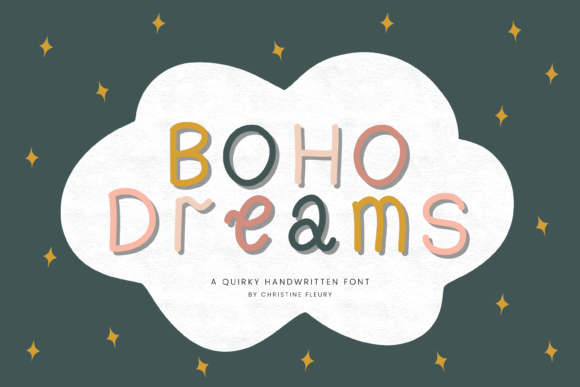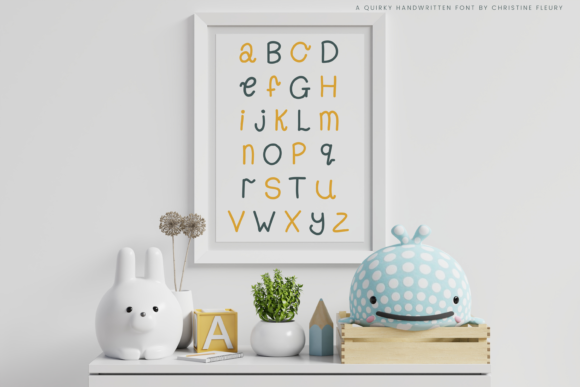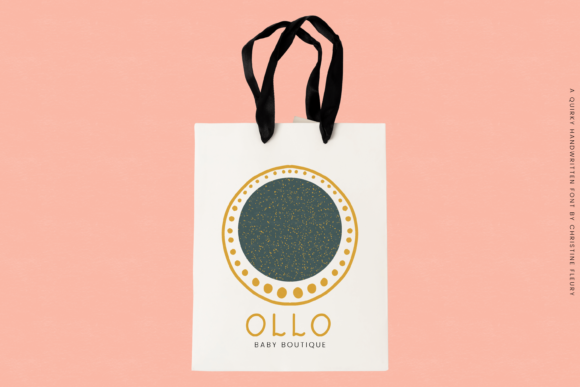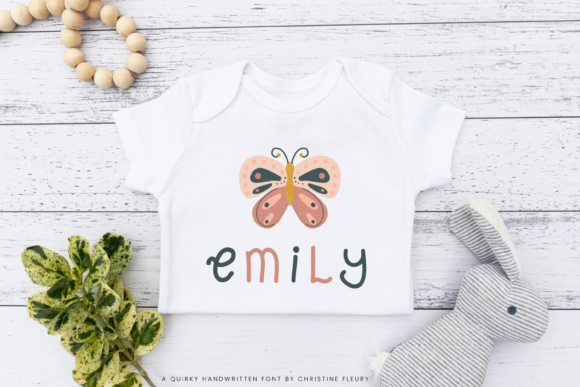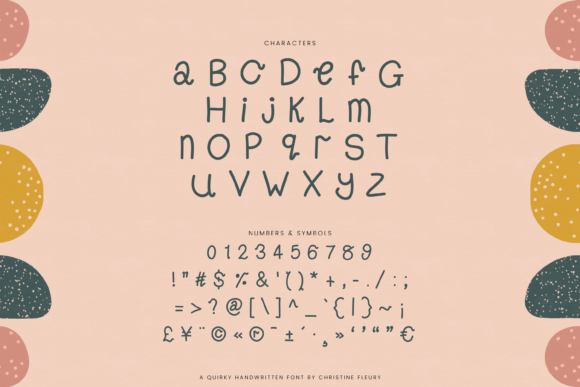
Boho Dreams Font
About Boho Dreams Font
Introducing Boho Dreams: The Sweet, Clean, and Quirky Handwritten Font for Boho and Dreamy Styled Projects
Step into a world of boho charm and dreamy aesthetics with Boho Dreams, a handwritten font that exudes sweetness, cleanliness, and quirkiness. Perfect for boho and dreamy styled projects, Boho Dreams features a delightful mix of upper and lower case characters, adding a unique touch to your designs. With PUA encoding, you can easily access all the glyphs, providing endless creative possibilities. Embrace the enchanting and whimsical vibe of Boho Dreams as you infuse your projects with a sense of bohemian allure and dreamy charm.
Boho Dreams’ sweet, clean, and quirky appeal brings a sense of grace and originality to your designs. Its handwritten letterforms flow with a seamless beauty, making your text exude a delightful and dreamy energy.
As a font that captures boho and dreamy aesthetics, Boho Dreams becomes the go-to choice for projects that seek a touch of whimsy and charm. Its mix of upper and lower case characters ensures that your work resonates with a bohemian and carefree look.
Embrace the allure of Boho Dreams as you embark on your creative journey. Let it be the font that elevates your designs, adding a sense of boho chic and dreamy charm in every project.
As you explore the possibilities of Boho Dreams, you’ll find it to be a font that enhances your designs with ease. Its sweet and quirky handwritten beauty transforms your work, ensuring that your creations leave a lasting impression.
So, let Boho Dreams be the font that adds a touch of boho and dreamy style to your designs. Embrace its delightful and clean charm, and watch as your boho styled projects, dreamy creations, and more come to life with a sense of carefree allure. With Boho Dreams as your go-to font, your designs will resonate with enchantment and originality, captivating your audience and leaving a lasting impression. Embrace the whimsy of Boho Dreams and create projects that are truly delightful and unforgettable!